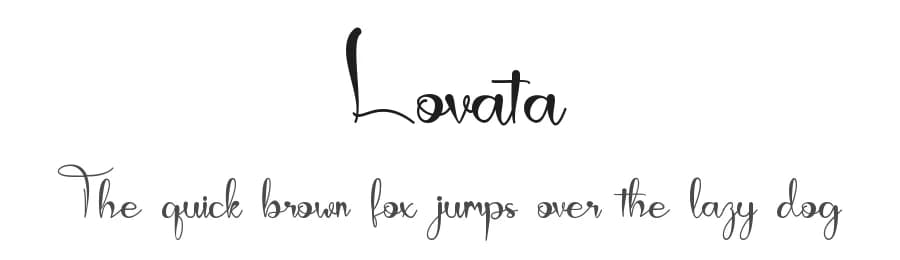
About Lovata Font
Vincentius Kriswandono
Jonathan Studio
Lovata Specifications
| Designer | Vincentius Kriswandono |
Lovata Font is a script font that shines as a display or heading face. Pair it with a clean sans-serif or serif font for body text β the contrast creates a clear hierarchy while the two styles stay balanced and easy to read.
Lovata Font